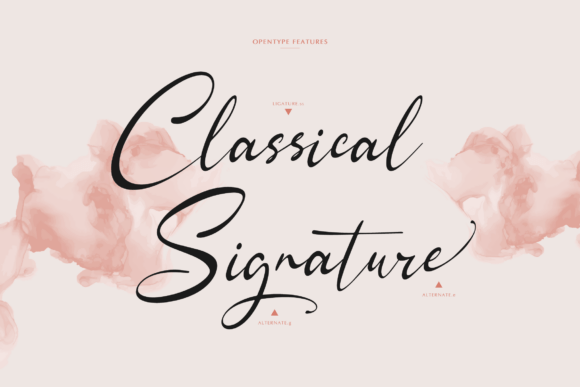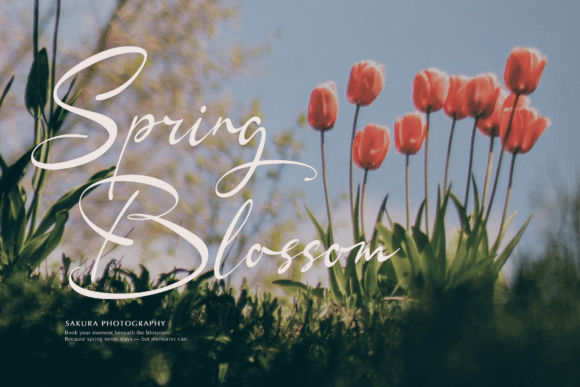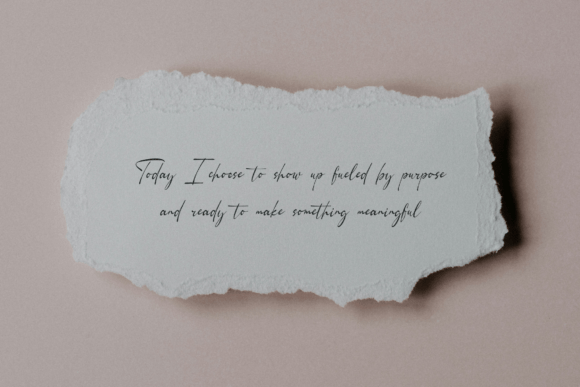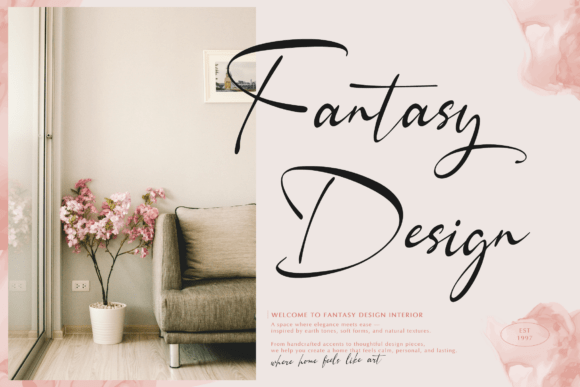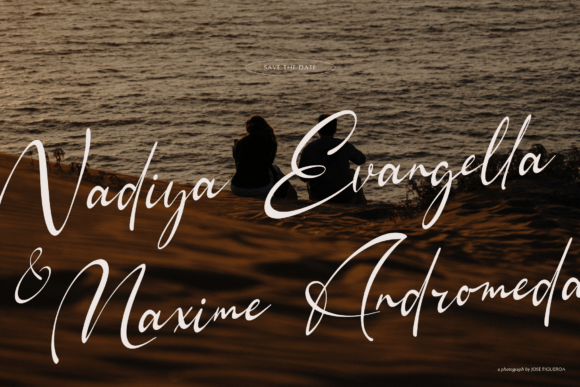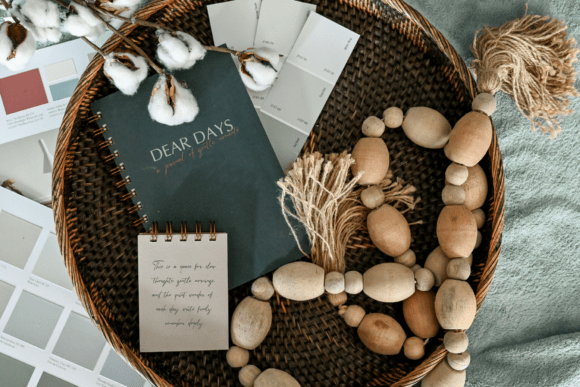
The Elegance of Chaerty Mellorind: A Handwritten Script Font
Have you ever been in the middle of a design project, pouring your heart and soul into every detail, only to realize that something is missing? For me, that something was the perfect font. I was working on a wedding stationery set for a client, and I needed a font that exuded elegance, sophistication, and a touch of romance. That’s when I stumbled upon Chaerty Mellorind, a beautiful handwritten script font that has since become a staple in my design toolkit.
A Personal Review: What I Love About Chaerty Mellorind
So, what makes Chaerty Mellorind so special? Here are a few things that I absolutely love about this font:
- ✨ Elegant and Expressive: Chaerty Mellorind has an undeniable air of sophistication, making it perfect for high-end designs, wedding stationery, and luxury branding.
- ✅ Excellent Legibility: Despite its elegant and cursive nature, this font remains highly legible, even at smaller sizes.
- 🌟 Highly Versatile: With 300 glyphs, including alternates, ligatures, and multilingual support, Chaerty Mellorind offers a wide range of creative possibilities.
- 💫 Organic and Natural: The font’s fluid strokes and rhythmic flow give it an organic, hand-drawn feel that’s perfect for designs that require a personal touch.
While Chaerty Mellorind is an exceptional font, there are a few minor quirks to be aware of:
- 🤔 Learning Curve: With so many glyphs and alternates available, it may take some time to get familiar with the font’s full capabilities.
- ⚠️ PUA Encoding: While the font is PUA encoded for easy access, some design software may require additional setup to fully utilize all the glyphs.
The Story Behind Chaerty Mellorind
Chaerty Mellorind was designed with the intention of capturing the elegance and sophistication of traditional calligraphy, while still maintaining a sense of organic, hand-drawn charm. The designer aimed to create a font that would be versatile enough to use in a wide range of projects, from wedding stationery to luxury branding. With its beautiful, flowing strokes and extensive character set, Chaerty Mellorind is a true masterpiece.
| Is Chaerty Mellorind suitable for body text? | While Chaerty Mellorind is an elegant font, it’s best suited for headings and titles. For body text, a more traditional font may be more suitable. |